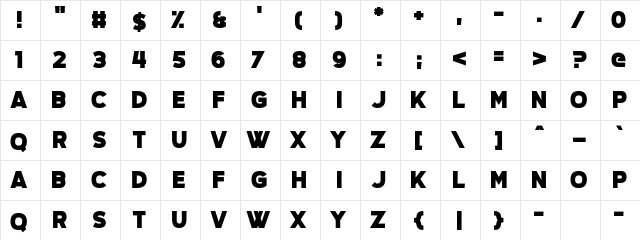
Questrian 3 Regular
| Designer | Allison James |
Design Context for Questrian 3 Typeface
Questrian 3 offers clean, dependable letterforms without strong stylistic allegiance, making it a practical choice for designers who need flexibility.